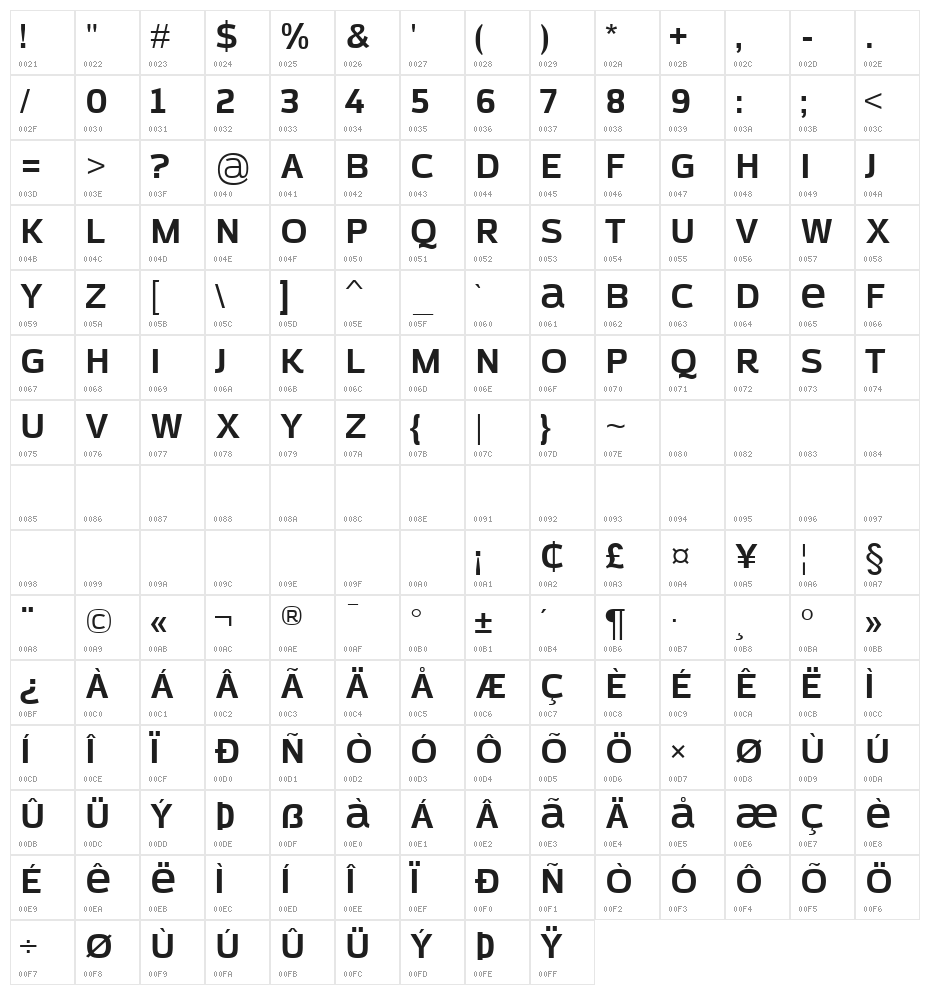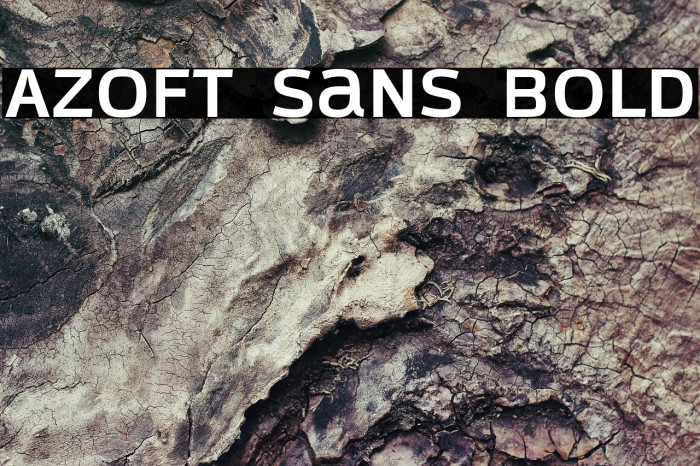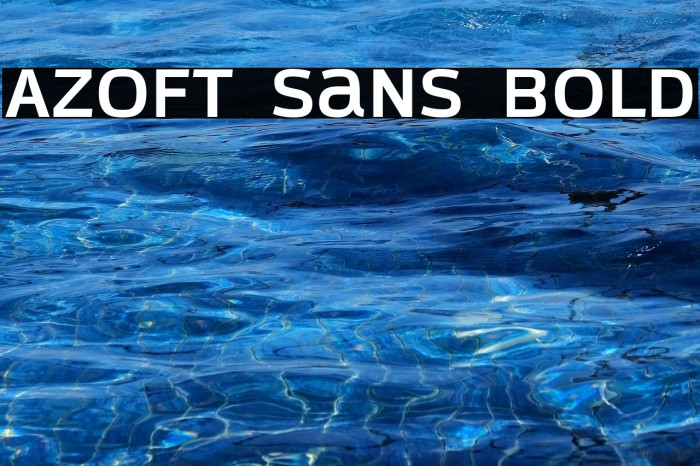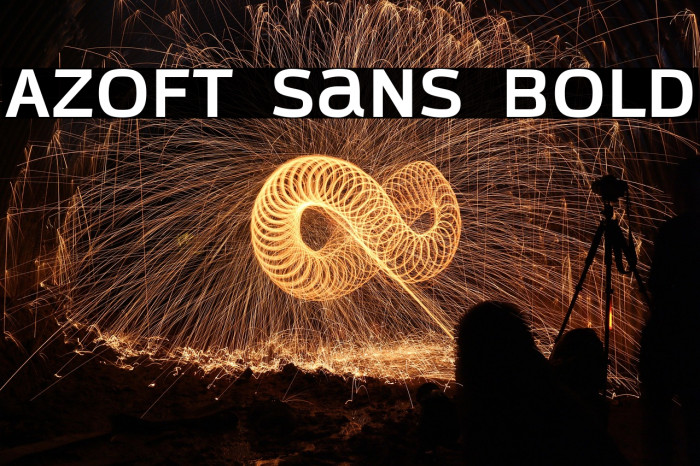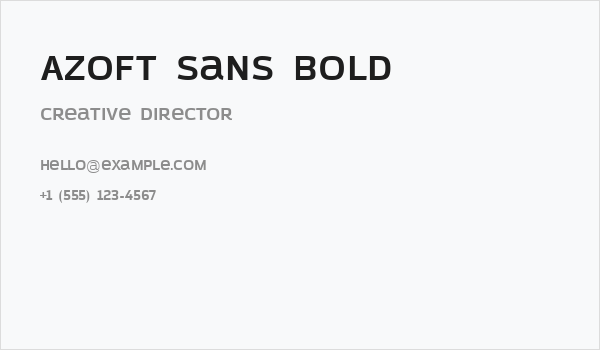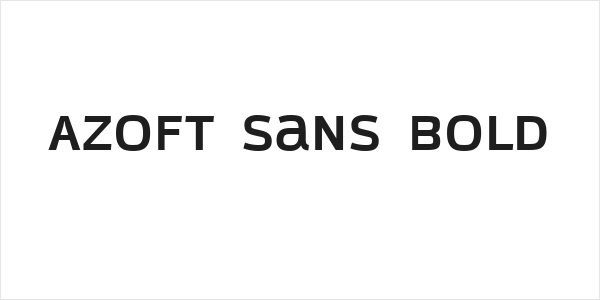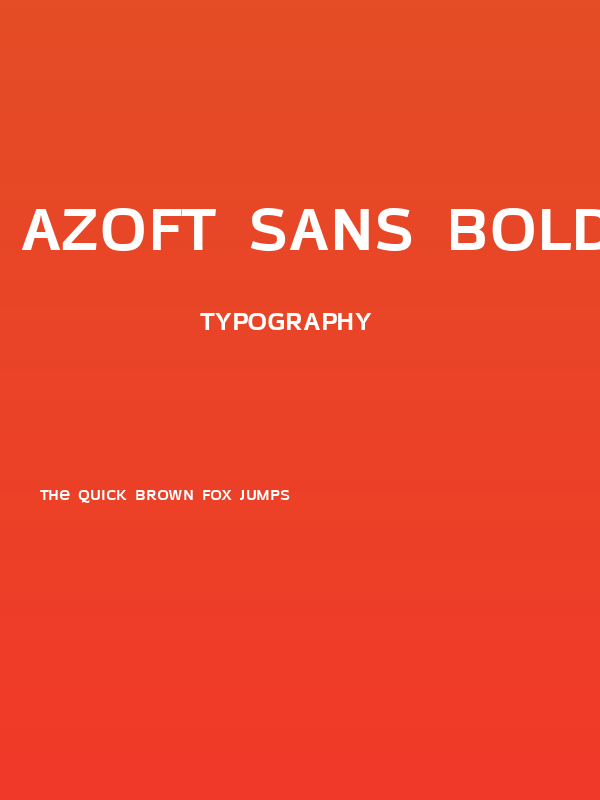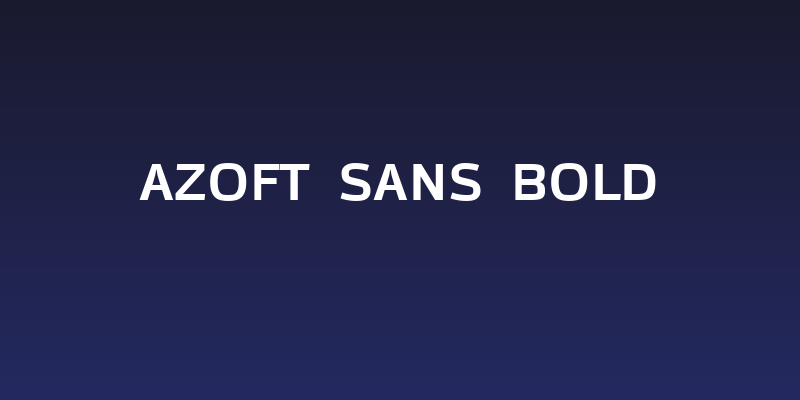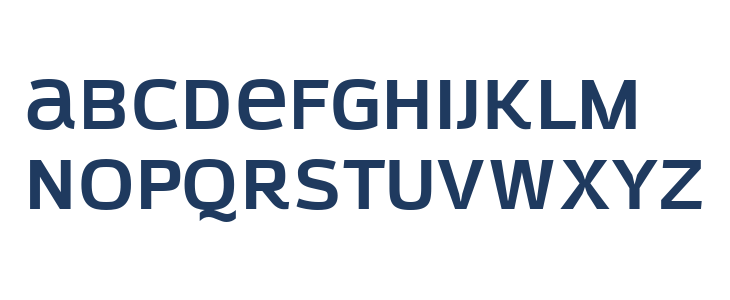
Azoft Sans Bold Font
Azoft Sans Bold Description
This font presents a bold and modern sans-serif style, characterized by clean lines and a robust appearance. The uppercase letters are uniform and balanced, providing a strong visual impact. The lowercase letters maintain a consistent design, ensuring readability and a cohesive look. The numerals are clear and distinct, making them suitable for various applications. Special characters are well-defined, adding versatility to the font's use. Overall, this font is designed for clarity and impact, making it ideal for both digital and print media.
| Proposed Projects | Ideal for branding, advertising, headlines, and digital media projects where clarity and impact are essential. |